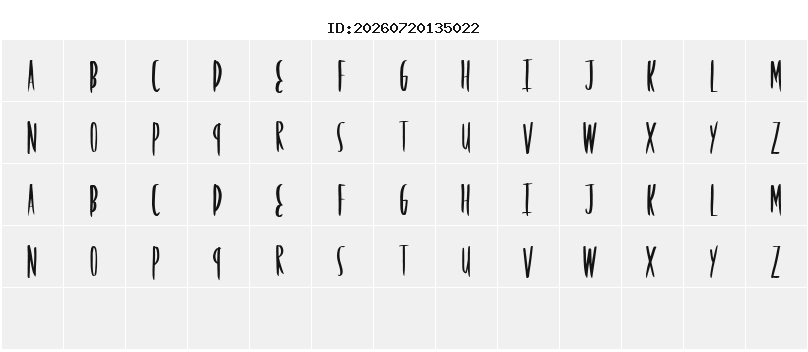
• Font Name: FriendsForever
• Designer: max infeld
• Description: made in ojai
About FriendsForever.ttf
FriendsForever.ttf is a modern, elegant sans-serif font designed for ultimate readability and visual harmony. Perfect for branding, headlines, web design, and print materials.